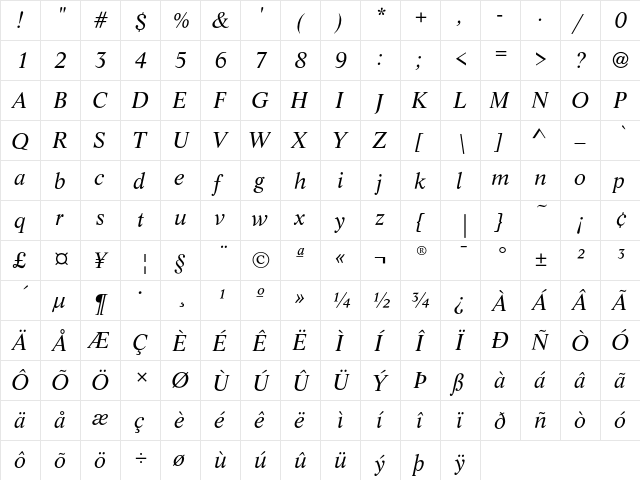
LifeEF RegularItalic Font Preview
LifeEF RegularItalic
Design Context for LifeEF Typeface
LifeEF is a composed and adaptable typeface that performs quietly and consistently across a wide range of design contexts. The slanted form adds forward momentum and visual energy.
Pro Tip: Try LifeEF for annotation and caption copy alongside an upright companion — the contrast in angle creates a dynamic but ordered typographic system.